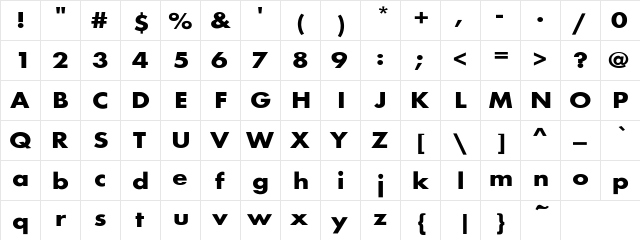
BelmarExt-Bold Regular
Design Context for BelmarExt-Bold Typeface
BelmarExt-Bold offers clean, dependable letterforms without strong stylistic allegiance, making it a practical choice for designers who need flexibility. The heavy weight commands attention and anchors typographic hierarchies.